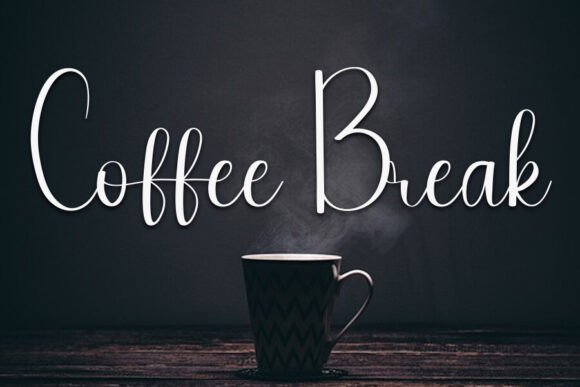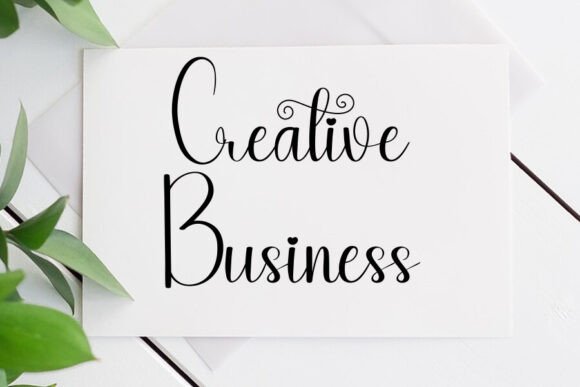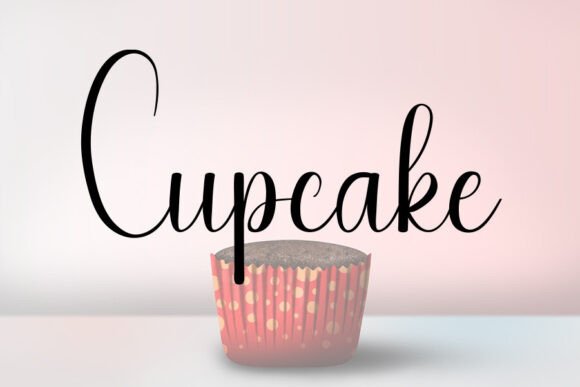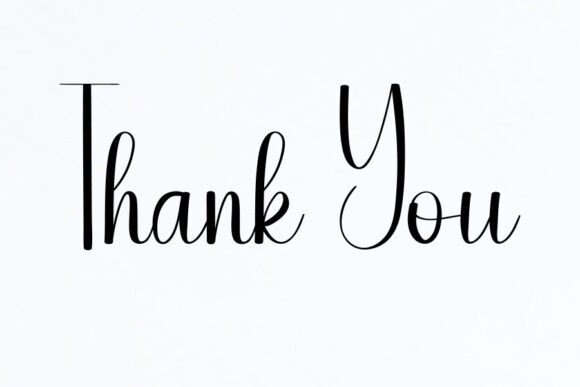
The Perfect Font for Creative Minds: A Deep Dive into Eating Font
I’ll never forget the moment I stumbled upon Eating Font while working on a branding project for a trendy café. I had spent hours scouring the internet for the perfect handwritten font, but nothing seemed quite right. That was until I saw Eating Font – its unique, beautiful touch instantly caught my eye, and I knew I had found the one. In this article, I’ll share my experience with Eating Font, its features, and how to make the most of it in your designs.
A Personal Review of Eating Font
As a designer, I’m always on the lookout for fonts that can elevate my work and make it stand out. Eating Font has become a staple in my font library, and here’s why:
- ✨ Unique and beautiful touch: Every letter in Eating Font has a distinct character, making it perfect for creating eye-catching logos and branding materials.
- ✅ Timeless design: The font’s handwritten style is both classic and modern, ensuring it won’t go out of style anytime soon.
- 💫 Versatile: Eating Font is suitable for a wide range of design projects, from quotes and posters to branding and packaging.
While Eating Font is an excellent choice, it’s not without its quirks:
- 🤔 Limited availability of certain characters: Some special characters and glyphs might not be readily available, which can be a minor inconvenience.
- ⚠️ Occasional kerning issues: As with any font, you might encounter kerning issues, especially when using it in combination with other fonts.
The Story Behind Eating Font
Eating Font was designed with the intention of creating a beautiful, timeless handwritten font that would inspire creativity. While the actual design process is shrouded in mystery, it’s clear that the designer aimed to craft a font that’s both elegant and approachable.
| Font Name | Eating Font |
| Author | cans studio |
| What makes Eating Font unique? | Eating Font’s unique touch lies in its beautiful, handwritten design, where every letter has a distinct character. |
| Is Eating Font available in different weights or styles? | Currently, Eating Font might be available in a single weight or style, but you can experiment with adjusting font size and color to achieve different effects. |